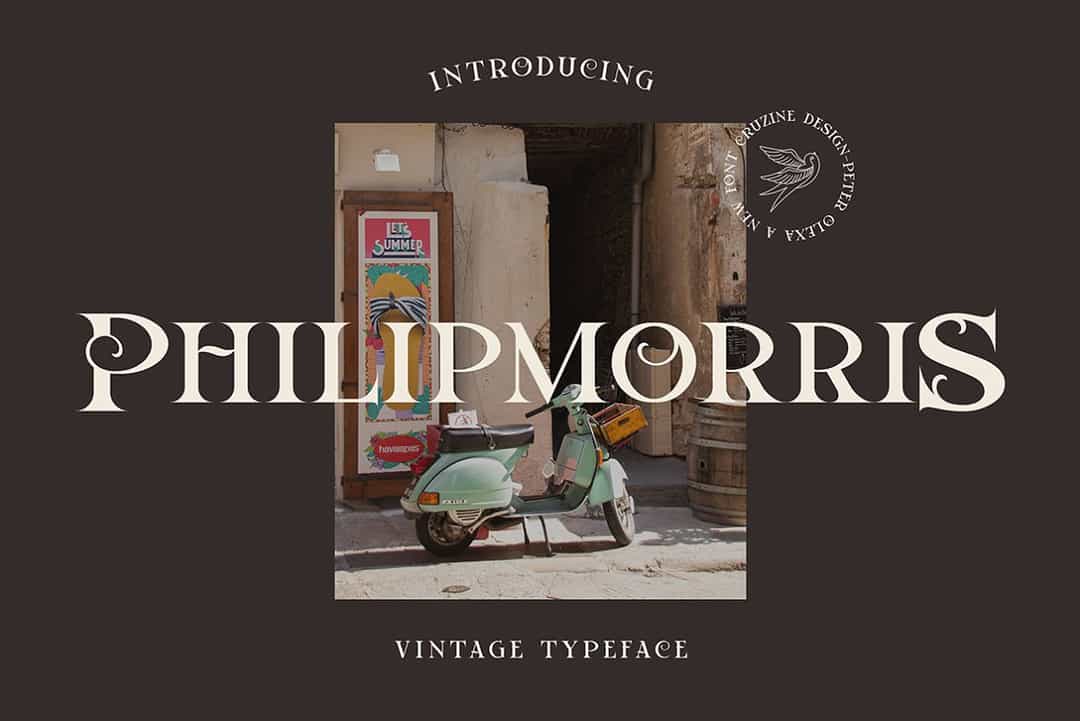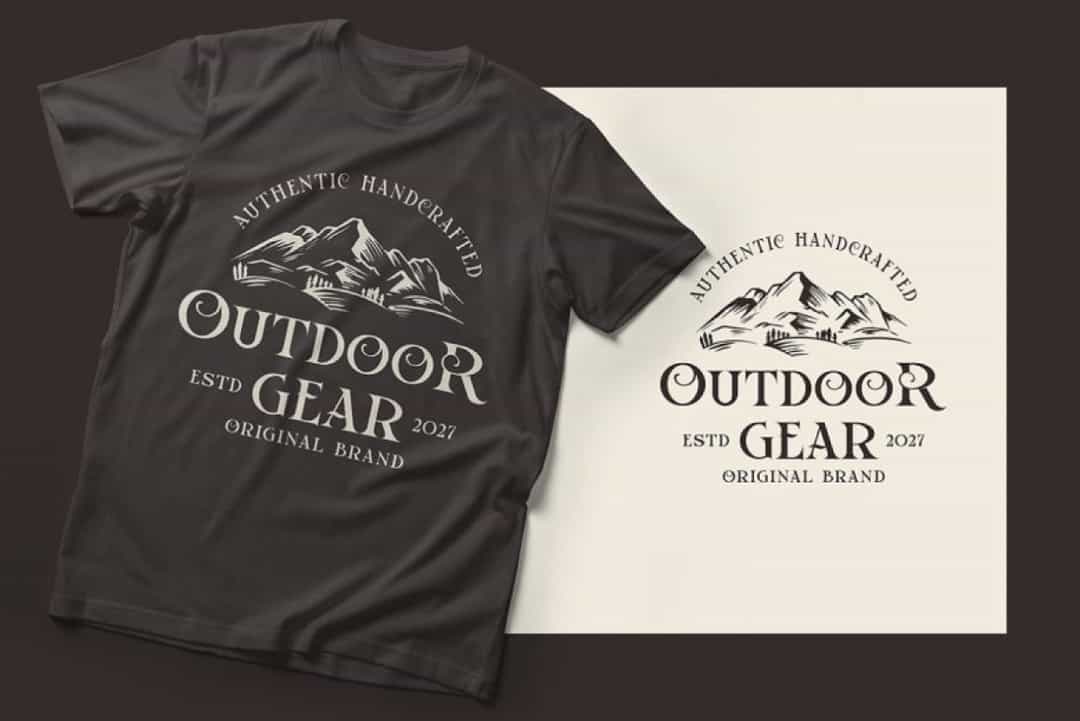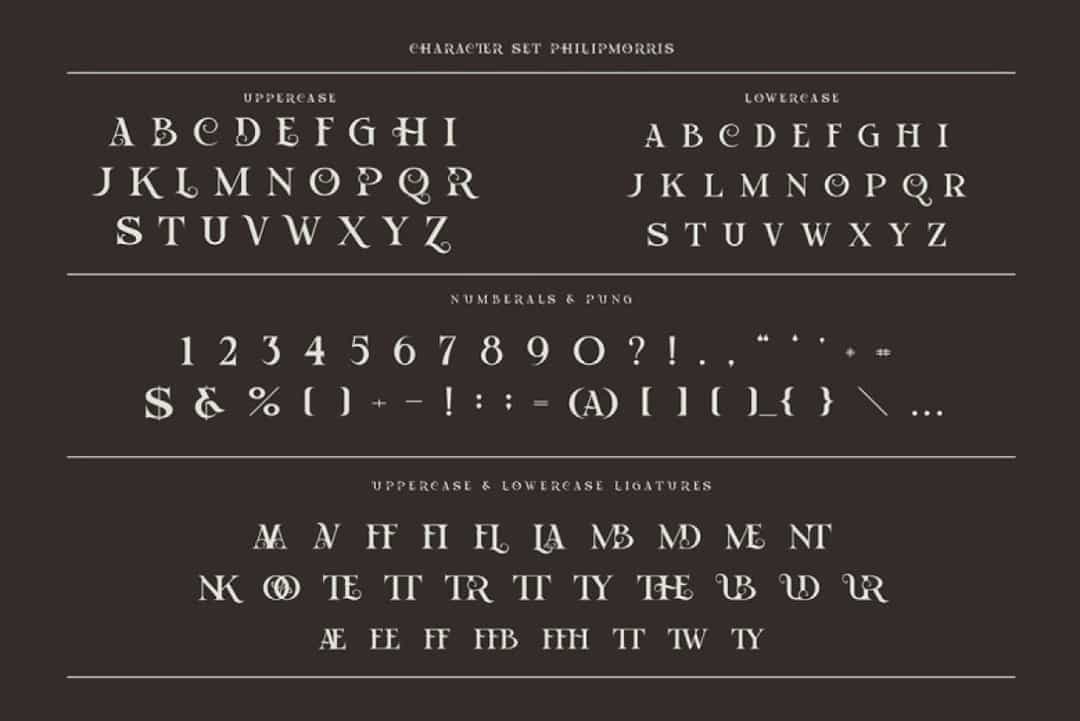
Philipmorris is a high quality decorative & bold serif font that is designed by JumboDesign and is available for free download and personal use. The free version provides all uppercase and lowercase letters and a few special characters too. Supports multilingual languages & features ligatures that make for great brand logo or branding opportunities.